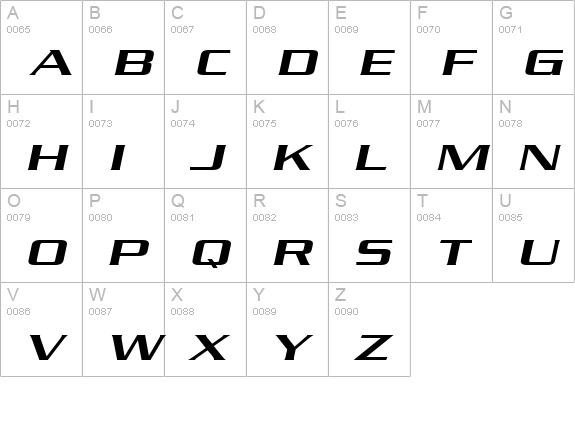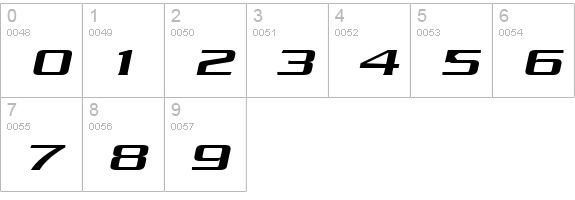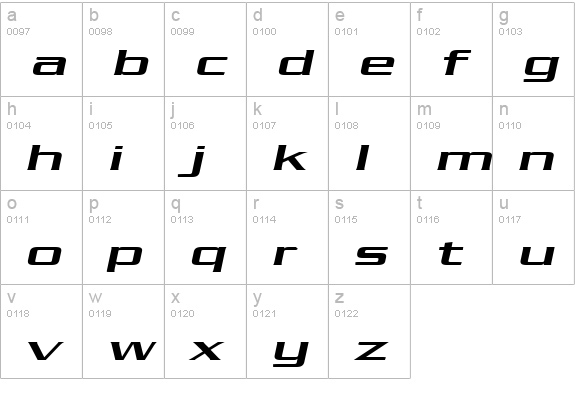
Chaney Extended Italic is a distinctive, extended-width, italic variant in the Chaney typeface family \xE2\x80\x94 well suited to design and typography projects.
Chaney Extended Italic is a modern and elegant font that exudes sophistication and style. With its sleek and elongated design, this font is perfect for creating a classy and refined look in any project. The italicized style adds a touch of flair and uniqueness to your text, making it stand out beautifully. Best of all, Chaney Extended Italic is available for free download at FontsMarket.com. You can easily access this stunning font and enhance your designs with its chic and contemporary aesthetic. Whether you're working on branding materials, invitations, or website design, Chaney Extended Italic is sure to add a touch of elegance and professionalism to your work. Don't miss out on this fantastic opportunity to elevate your designs with this exquisite font – download it for free today!